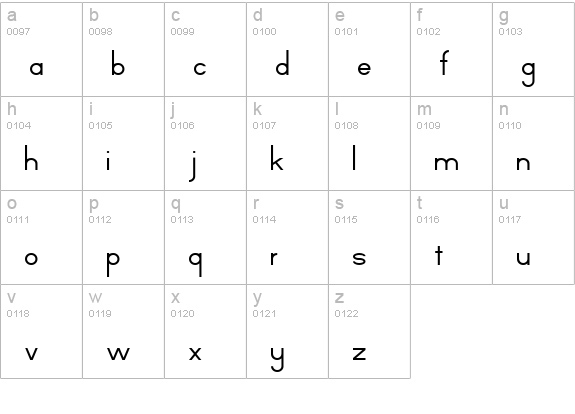
Zamyatin Font Details
Zamyatin font is a modern and stylish typeface that exudes elegance and sophistication. Its sleek lines and curves give it a unique and contemporary look that is perfect for a wide range of design projects. Whether you're creating a logo, branding materials, or a website, Zamyatin font will add a touch of class to your work. One of the best things about Zamyatin font is that it is completely free to download. You can easily access this beautiful typeface at FontsMarket.com and start using it in your projects right away. With its clean and versatile design, Zamyatin font is sure to become a go-to choice for designers looking to make a statement. Don't miss out on the opportunity to enhance your designs with this amazing font today!